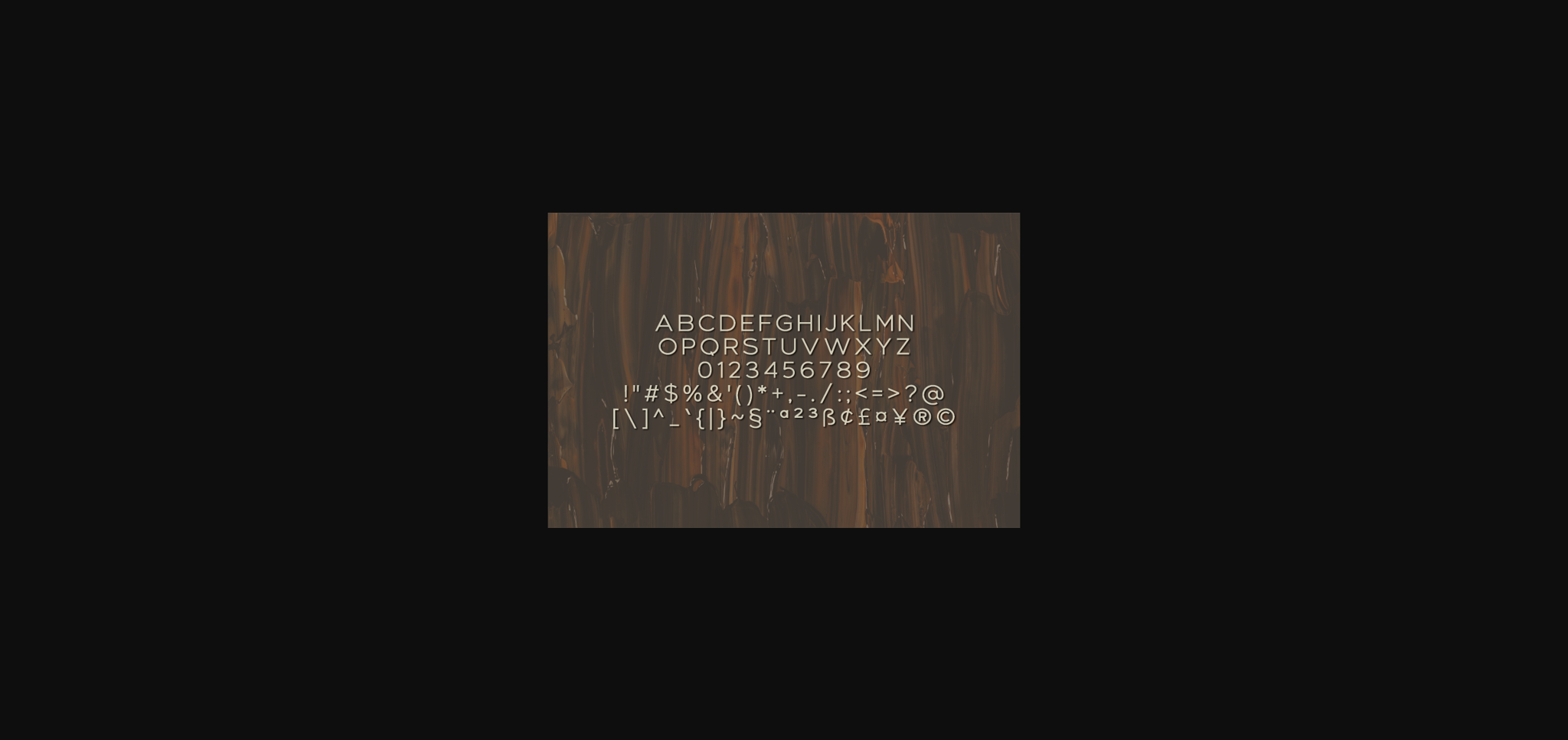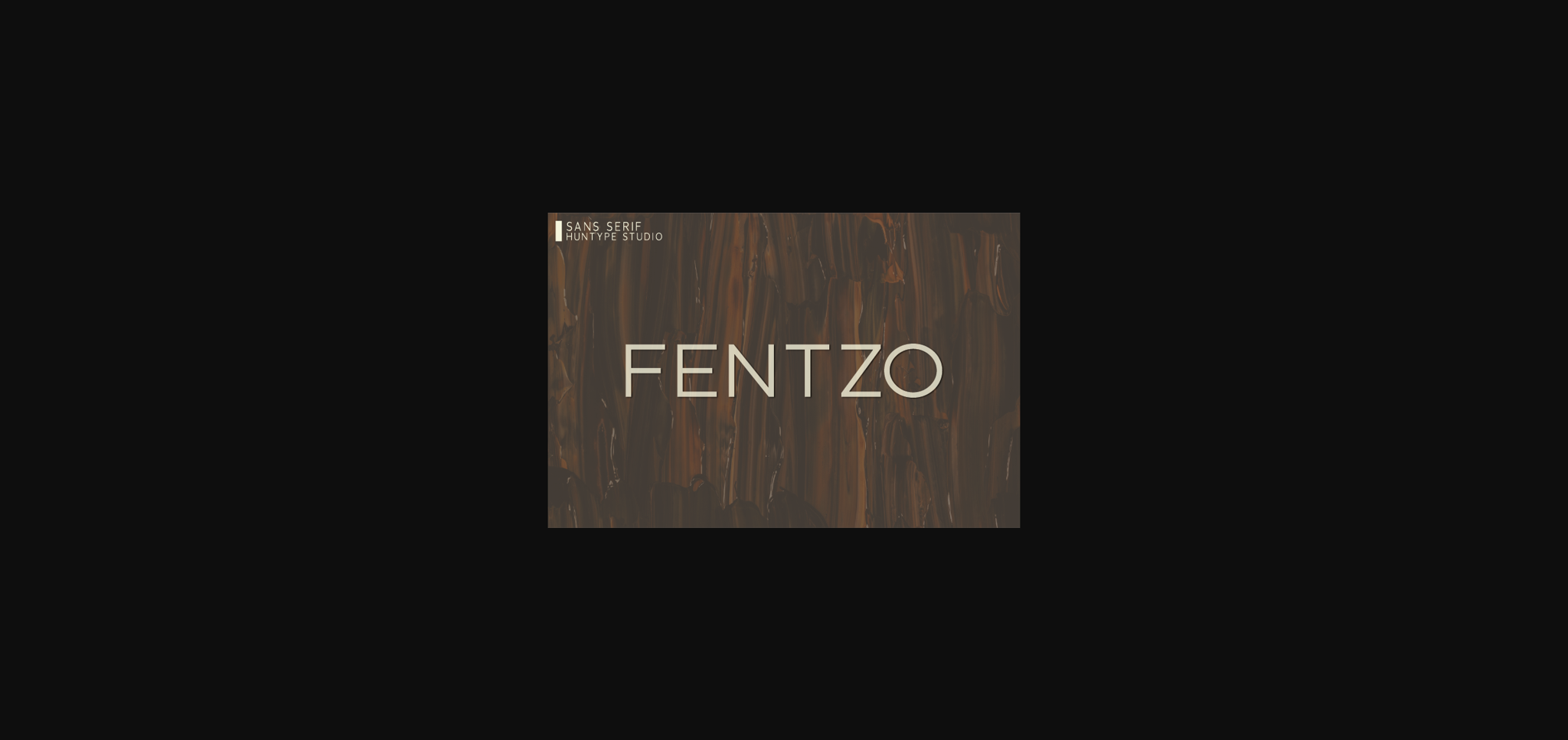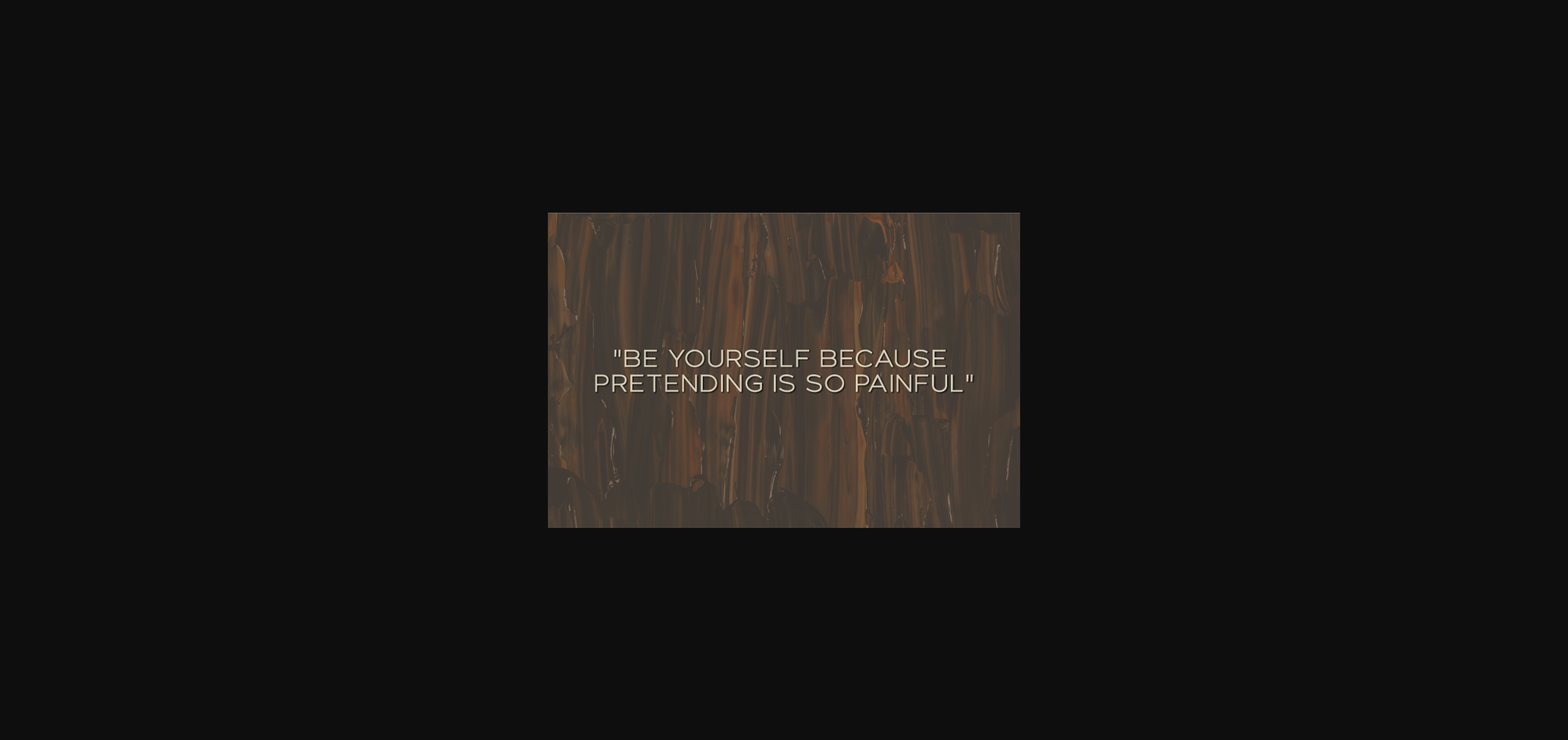
About Fentzo Font
Fentzo is a simple and genuine sans serif font. It has a clean, thin and smooth vibe and it will be a hit for any design that you want to add it to.